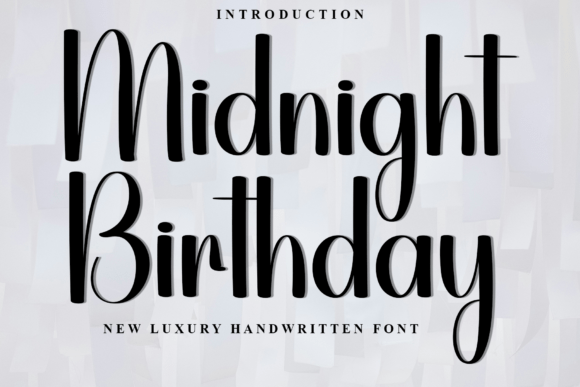
Midnight Birthday Font: Elevate Your Designs with Elegance
The world of typography is vast and diverse, offering a multitude of fonts to suit every design need. Among these, script fonts hold a special place for their elegance and personal touch. One such font that has gained popularity for its stylish and elegant appearance is the Midnight Birthday Font. This font is not just a typographic choice; it’s an experience that can transform your designs, making them more sophisticated and appealing. In this article, we’ll delve into the characteristics, uses, and benefits of the Midnight Birthday Font, exploring how it can elevate your creative projects.
What is Midnight Birthday Font?
Midnight Birthday is a stylish and incredibly elegant script font. Its design is characterized by fluid strokes and a graceful flow, reminiscent of handwritten calligraphy. This font is perfect for designers looking to add a touch of sophistication and personal warmth to their creations. Whether you’re working on wedding invitations, thank you cards, quotes, greeting cards, logos, or business cards, the Midnight Birthday Font can add that extra layer of elegance and charm.
Key Features of Midnight Birthday Font
- Elegant Script Design: The font boasts a beautiful script design that can instantly elevate the aesthetic of your projects.
- Versatility: It’s incredibly versatile, suitable for a wide range of design projects including weddings, personal greetings, and professional branding.
- Handwritten Touch: The font provides a handwritten touch, making your designs feel more personal and unique.
- Easy to Read: Despite its elegant and cursive nature, the Midnight Birthday Font remains easy to read, ensuring your message is communicated effectively.
Uses of Midnight Birthday Font
The applications of the Midnight Birthday Font are vast, limited only by your imagination. Here are some popular uses:
Popular Use Cases
- Wedding Invitations: Add a touch of romance and elegance to your wedding invitations, making the occasion even more special.
- Thank You Cards: Express your gratitude with style, using a font that conveys warmth and sincerity.
- Quotes and Greeting Cards: Make your quotes and greeting cards stand out with a font that is both stylish and heartfelt.
- Logos and Business Cards: For businesses aiming to project an image of elegance and professionalism, the Midnight Birthday Font can be a great choice.
Benefits of Using Midnight Birthday Font
Choosing the right font for your project can significantly impact its success. Here are some benefits of using the Midnight Birthday Font:
Why Choose Midnight Birthday Font?
- Unique and Memorable: The elegant design of the Midnight Birthday Font can make your project stand out, making it more memorable to your audience.
- Emotional Connection: The personal and handwritten feel of the font can help create an emotional connection with your audience, enhancing the impact of your message.
- Professionalism: Despite its personal touch, the font exudes professionalism, suitable for high-end projects and brands.
Tips for Using Midnight Birthday Font Effectively
To maximize the potential of the Midnight Birthday Font, consider the following tips:
Effective Usage Tips
- Pair with Complementary Fonts: When using the Midnight Birthday Font alongside other fonts, choose ones that complement its elegance without overpowering it.
- Consider Font Size: The elegance of the font can be accentuated with appropriate font sizing. Larger sizes for headings and smaller for body text can create a visually appealing hierarchy.
- Color Selection: Choose colors that match the theme of your project while ensuring the font remains readable. Pastel shades or metallic colors can enhance its elegance.
- Use for Headlines and Accents: For longer texts, consider using the Midnight Birthday Font for headlines or key phrases to draw attention and add a stylish touch.
The Midnight Birthday Font is a versatile and elegant script font that can add a sophisticated touch to a wide range of design projects. Its unique blend of elegance, readability, and personal warmth makes it a valuable asset for designers looking to create memorable and impactful designs. Whether you’re working on wedding invitations, business branding, or personal projects, incorporating the Midnight Birthday Font can elevate your designs to new heights of style and sophistication.
Embrace Elegance with Midnight Birthday Font
In the world of design, fonts are more than just letters on a screen or page; they are expressions of emotion, style, and intent. The Midnight Birthday Font stands out as a beautiful expression of elegance and grace, ready to bring your designs to life. Explore its potential, and let it be the perfect complement to your creative vision.